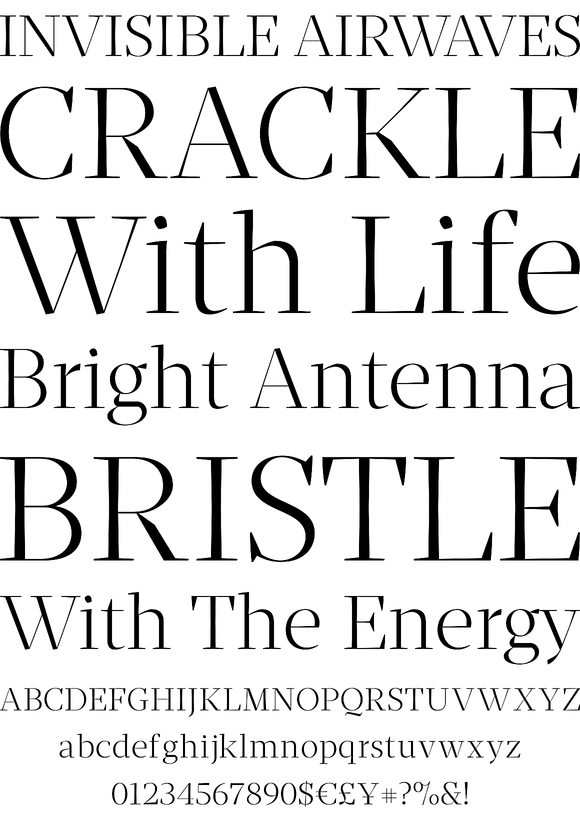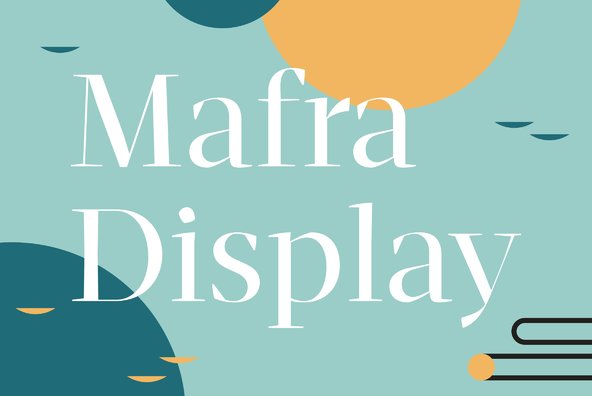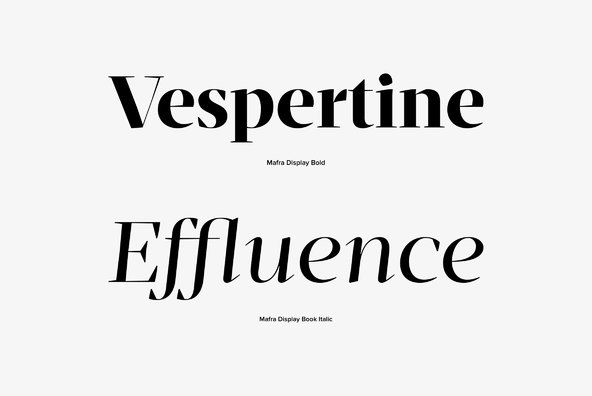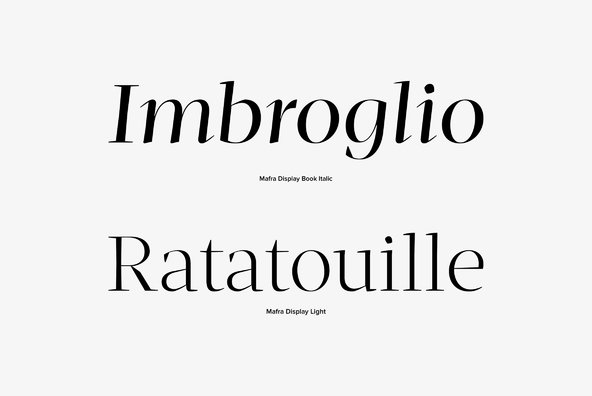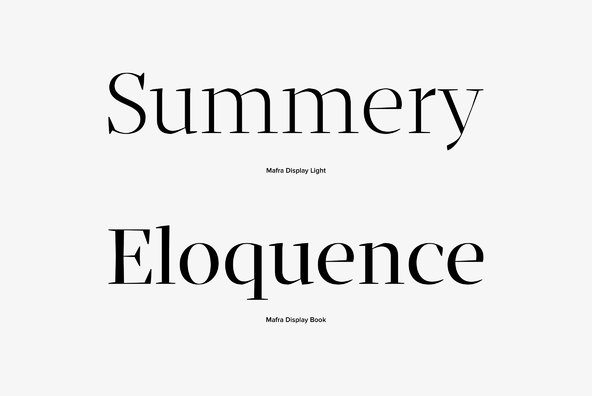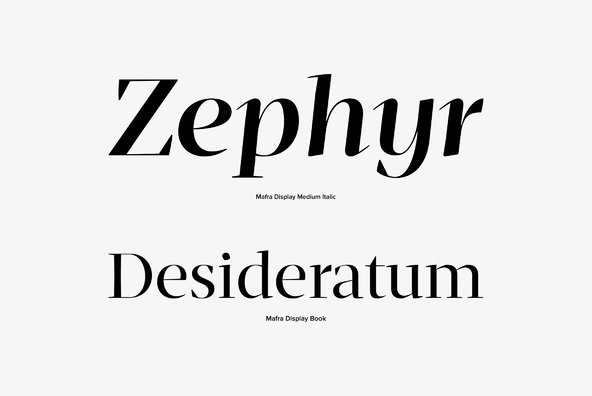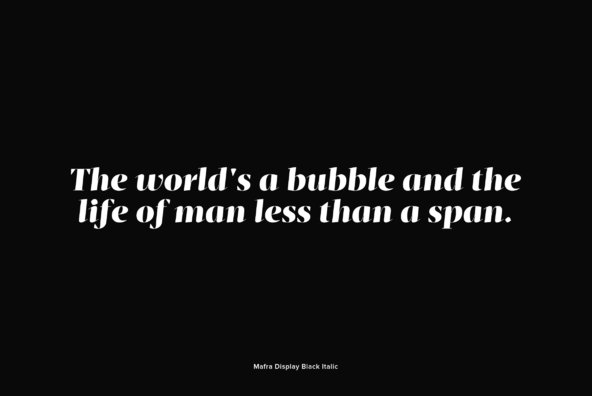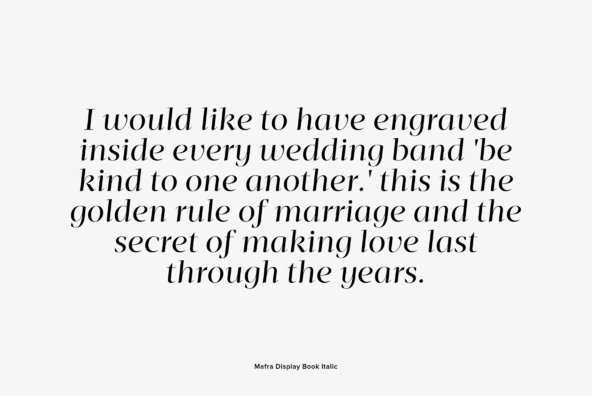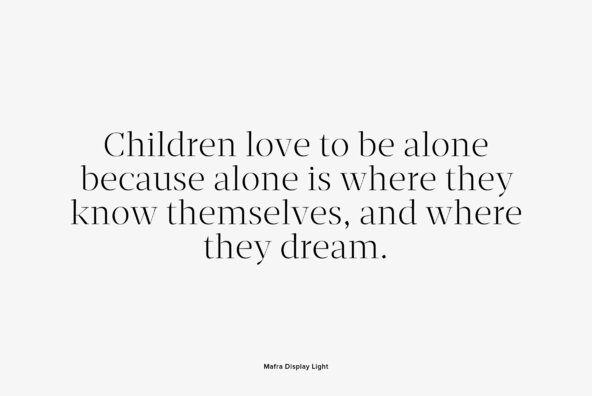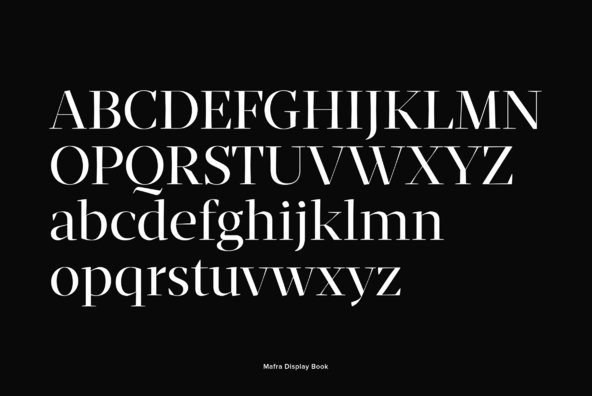
Mafra Display
Foundry: DSType
Mafra, the debut typeface by Pedro Leal, a type family suited both for editorial and corporate design, available in five weights, ranging from Light to Black with matching italics. Mafra is a contemporary typeface with plenty of style, asymmetrical and very dynamic serifs, and pleasent openness and balance.